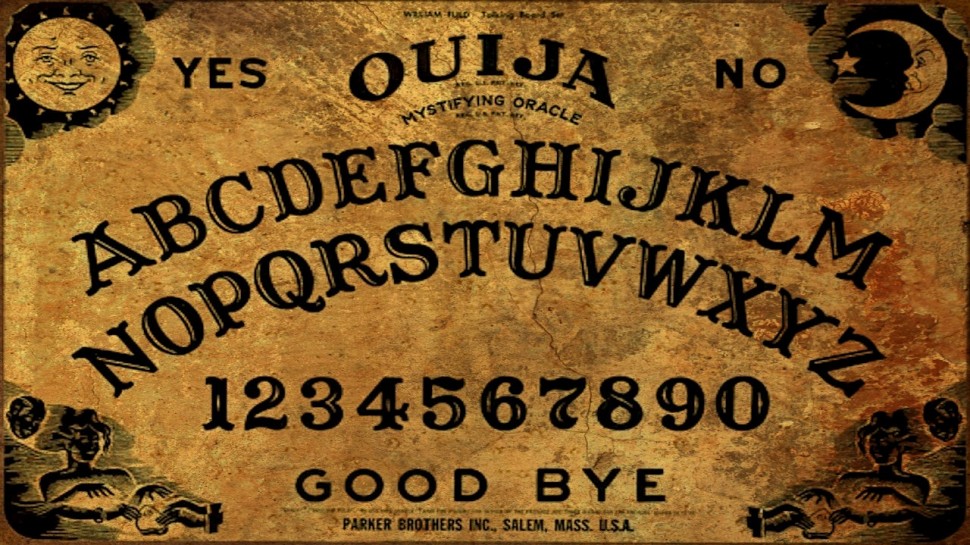
Ouija Board Font Dafont
This is a board through which it is claimed that one can speak to the dead.
Ouija board font dafont. All fonts are categorized and can be saved for quick reference and comparison.fonts are Ouija is an old style display font, perfect for spooky projects and tattoo designs. Since your mac is in safe mode, you might be able to delete the corrupted file.
They owned a press shop in amsterdam back in the 16th century. Create something ghoulishly grand with ouija font. The image above shows a hasbro packaging of the board game and the typeface in use is advertisers gothic, which is a bold.
Captain howdy was inspired by the font often seen on classic ouija boards, known as a woodtype, circus, or western font. This is a board that claims to speak to the dead. I traced all characters as they appeared in the original print.
This is a board that claims to speak to the dead. Captain howdy was inspired by the font often seen on classic ouija boards, known as a woodtype, circus, or western font. Phasmophobia logo font | jul 23, 2020 · hold down the shift key as your mac restarts to enable safe mode.
Am looking for the font for the ouija logo itself. There are many other such items that use particular fonts that can then be labelled as demon fonts collection of fonts for 13 true tongues/ new codex / spoken dialect/ ttruth of demon. Log into your account and locate the file you want to delete.
Captain howdy is what regan, the possessed girl in the exorcist, calls the spirit who contacts her through her ouija board. Many other such items use particular fonts that can then be labeled as creepy or spooky fonts. Dec 03, 2014 at 09:42.
This is a plank that claims to talk to the deceased. The demon font is mainly part of pop occult such as the font used in the ouija board. In basic > serif 1,962,974 downloads (3,372 yesterday) 4 comments free for personal use.
(1 week ago) download free scary fonts at urbanfonts.com our site carries over 30,000 pc fonts and mac fonts. Yet another woodtype, “circus,” or “western” font. Most fonts on this site are freeware, some are shareware or linkware.
It's then up to you to save yourself and your friends! It’s that time of the year again, when witches and goblins rule the night. Captain howdy was inspired by the font often seen on classic ouija® boards.